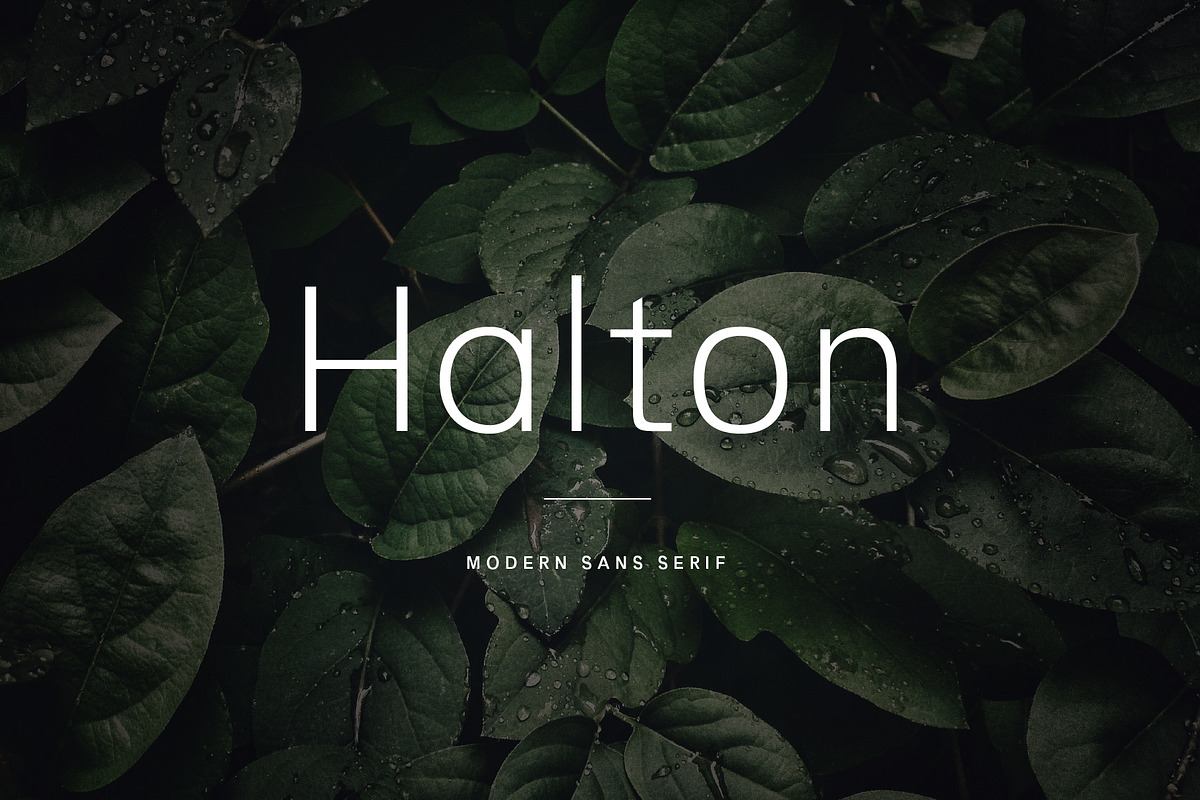
Please note that you must purchase this font for commercial use. You can download Halton – Modern Sans Serif Typeface for free, strictly for personal testing purposes only. Halton is a sleek and modern sans-serif typeface designed to bring clarity and sophistication to your designs. With its clean lines, geometric structure, and contemporary feel, Halton Font Free Download is perfect for branding, logos, editorial layouts, websites, and any project that requires a modern, minimalist touch.
The font is highly versatile and ideal for both print and digital applications, offering excellent readability and style. It includes uppercase and lowercase letters, numerals, punctuation, and multilingual support, ensuring it works across a variety of creative uses.
Whether you’re designing a modern website, creating a contemporary brand identity, or crafting professional marketing materials, Halton adds a sharp, professional edge to your typography.